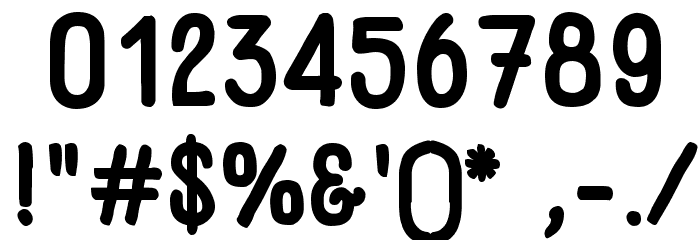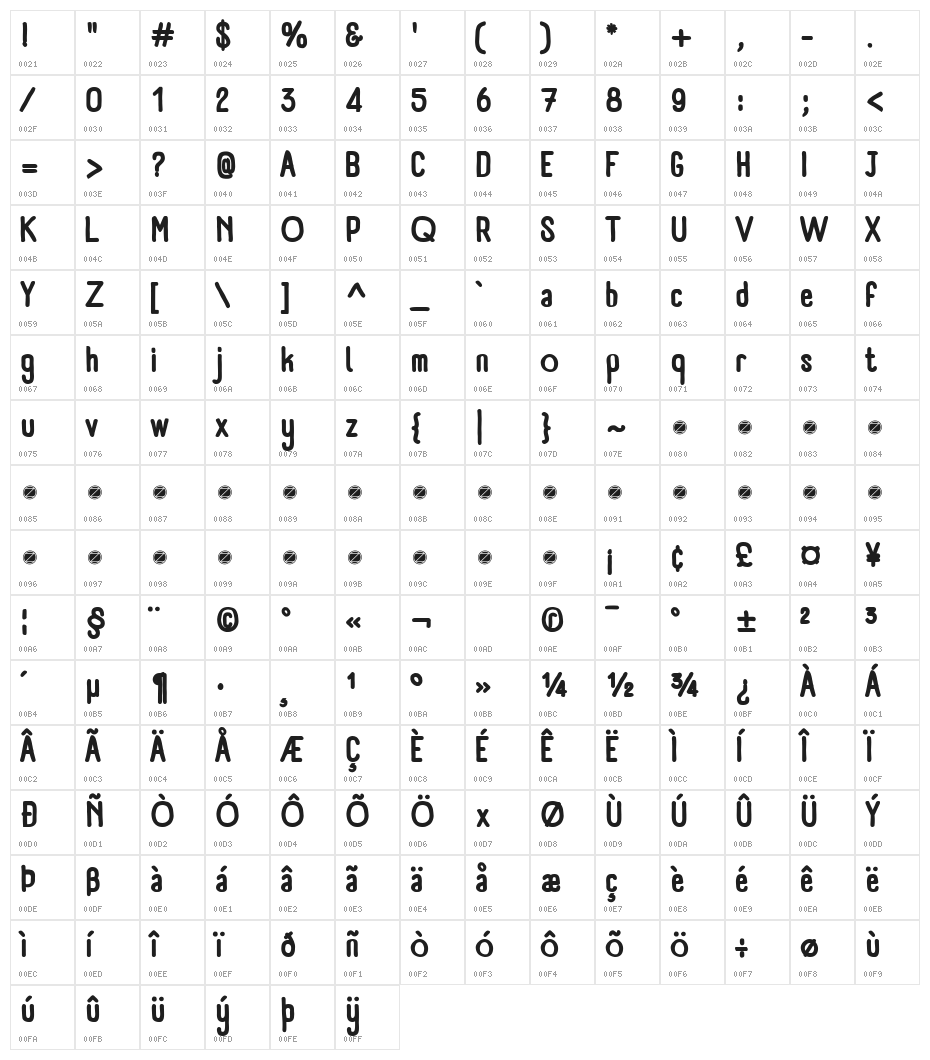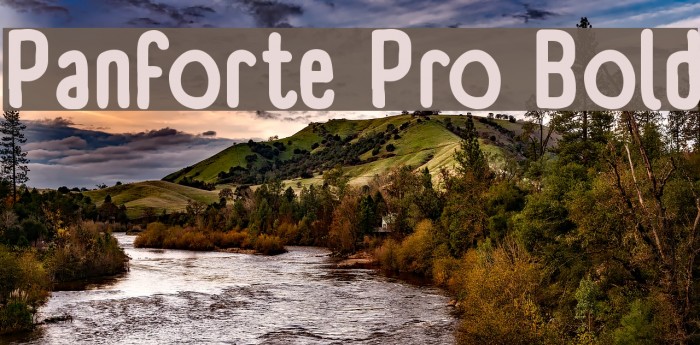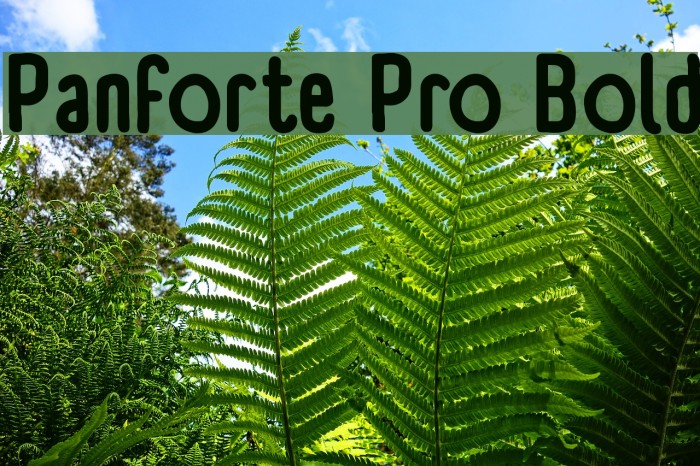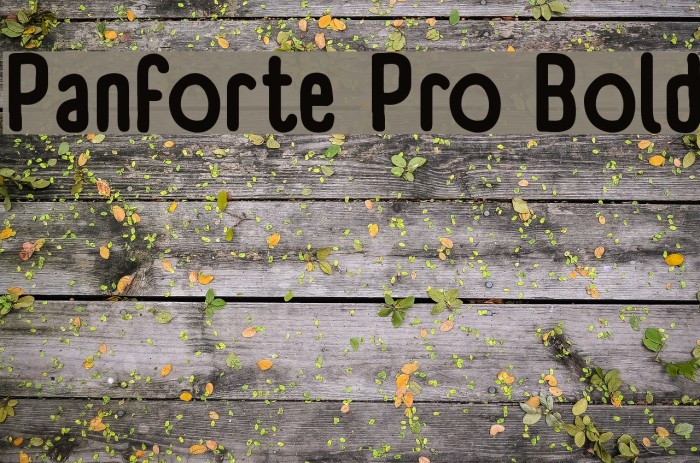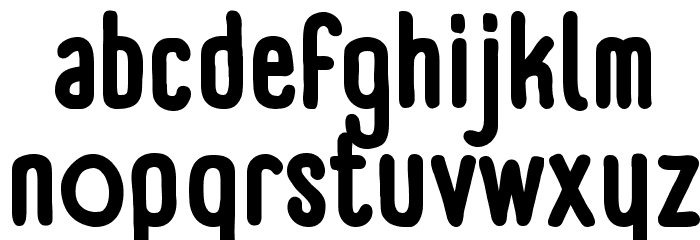
Panforte Pro Bold Font
Panforte Pro Bold Description
This font features a bold and rounded style with a playful and approachable appearance. The characters are uniformly thick, providing a consistent and solid look across both uppercase and lowercase letters. The numbers and special characters maintain the same boldness, ensuring readability and a cohesive design. The rounded edges give it a friendly and modern feel, making it suitable for various design applications. The font's structure is clean and straightforward, with a slight emphasis on vertical strokes, contributing to its legibility.